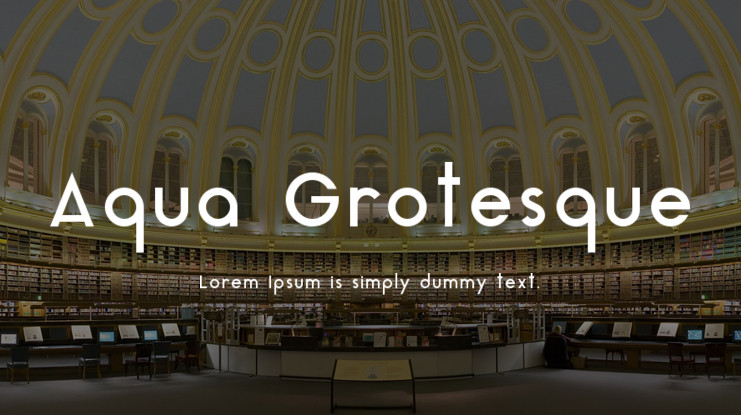
Aqua Grotesque Font
Aqua Grotesque Font is known for pairing function. Also for the font generator function. This typeface shares the similarities with modeka font. Alongside enterprise company logos and metal fabricated lettering.
That is an extra beautiful and particular thunderstorm font kind in sans serif typeface family. You can use this font in you all designs and humanities and crafts works. The style of this font may be very new and stylish. Those fonts are applied in unique calligraphy styles and designs of various works of artwork.
As indifferent calligraphy patterns, this fashion is maximum well-known.